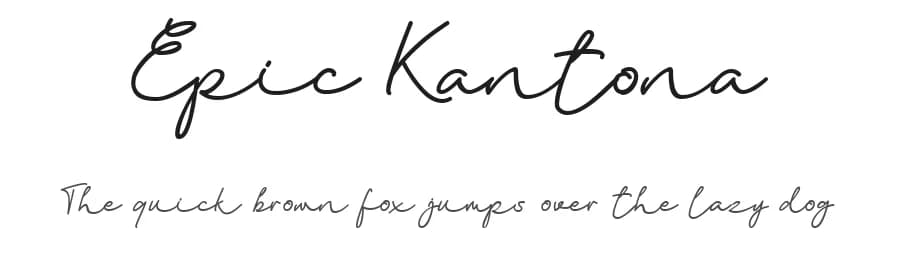
About Epic Kantona Font
Epic Kantona Signature is a elegant and a smooth casual monoline signature stylish script.
It is perfect for branding projects, logo, wedding designs, social media posts, advertisements, product packaging, product designs, label, photography, watermark, invitation, stationery and any projects that need handwriting taste.
Epic Kantona Font